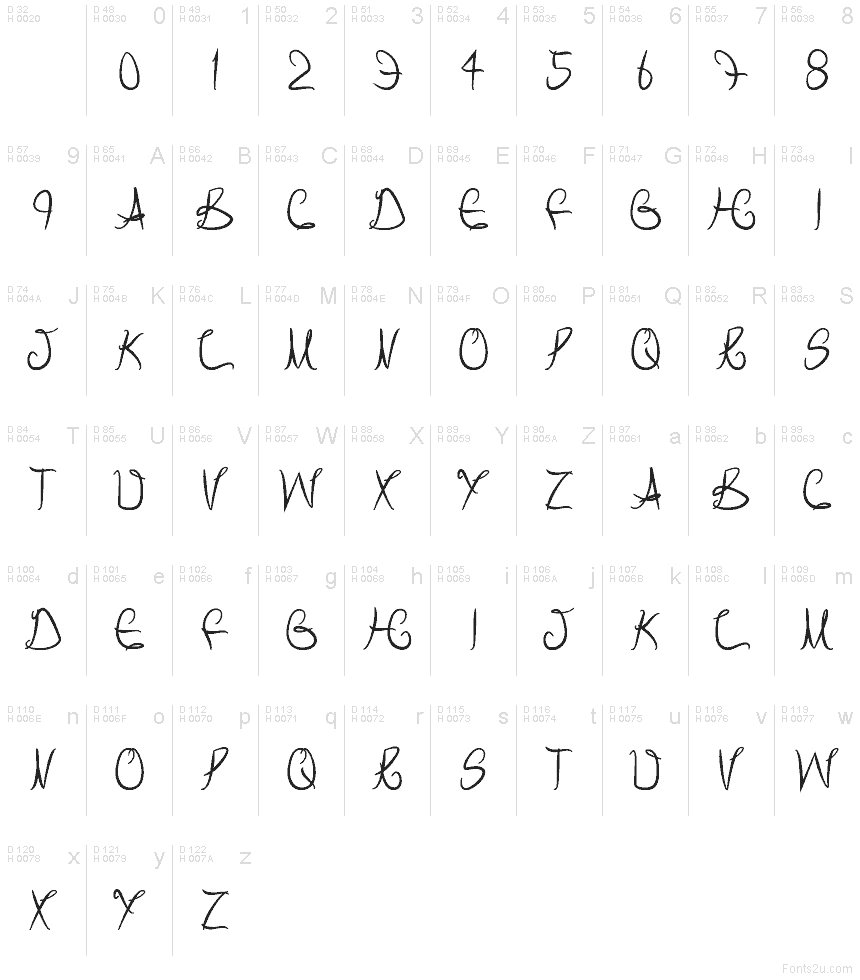
Script
Script font by Woramet Tompudsa is a free handwritten script font. It stands out with tall, airy letterforms and playful, swirled terminals that feel inked rather than engineered. The strokes are slim and lightly textured, with loose connections and a gentle bounce that keeps words lively without losing legibility. Open counters and generous spacing make headlines breathe while still looking personal and crafted.
Using Script, your titles gain a breezy, boutique vibe that shines on packaging, wedding invites, café menus, social posts, greeting cards, and craft-market posters. This free font’s lanky rhythm and whimsical curls add charm without clutter, making short phrases and brand marks pop. Pair it with a crisp geometric sans for body copy, and give Script extra tracking at larger sizes to accentuate its elegant loops.